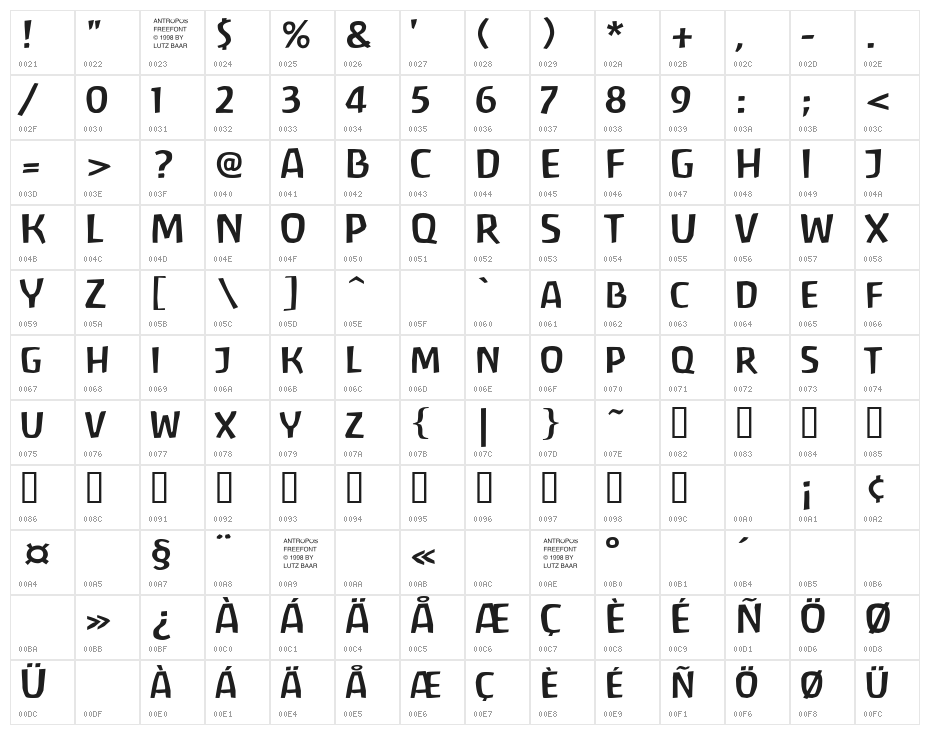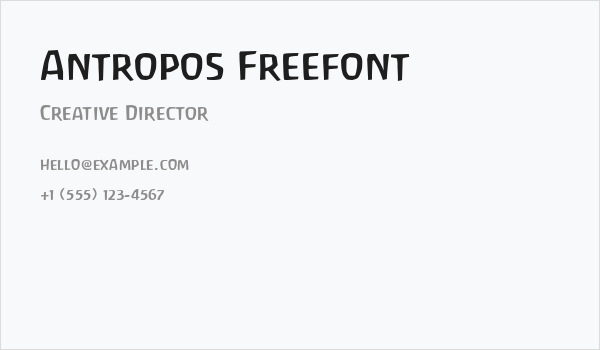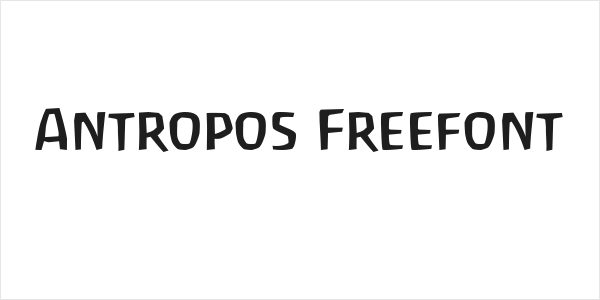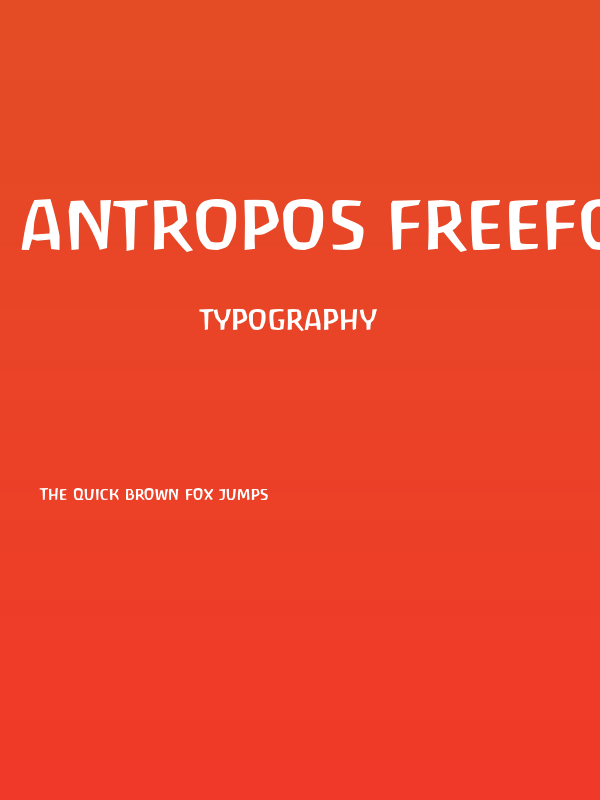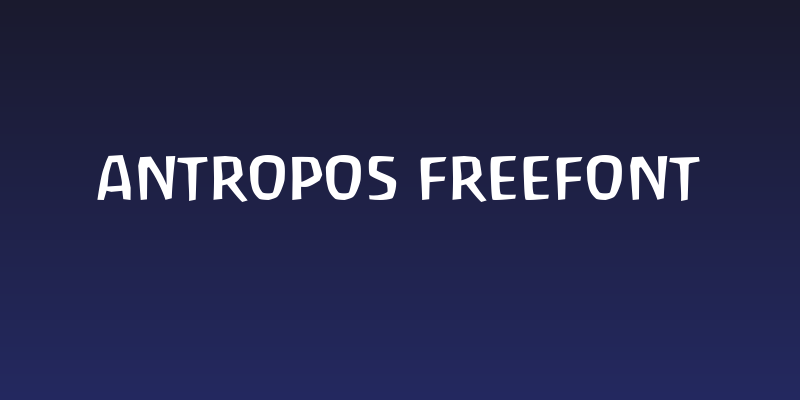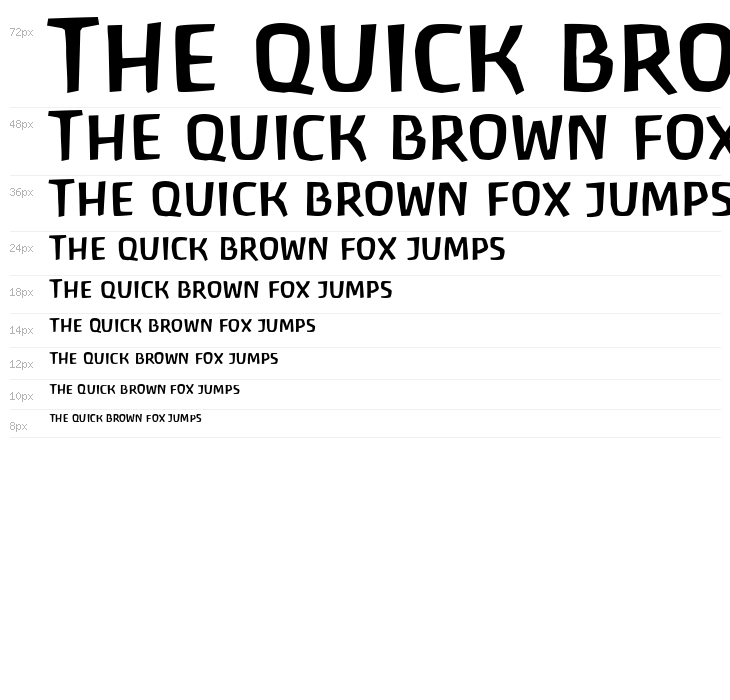
Antropos Freefont Font
Antropos Freefont Description
This font features a unique and bold style with slightly irregular strokes that give it a hand-drawn appearance. The uppercase letters are prominent and have a distinct angularity, while the lowercase letters maintain a consistent flow. The numbers are bold and clear, making them easily readable. Special characters are well-defined, adding to the font's versatility. Overall, the design is modern with a touch of playfulness, making it suitable for creative projects.
| Proposed Projects | Ideal for branding, posters, and creative design projects that require a bold and artistic touch. |